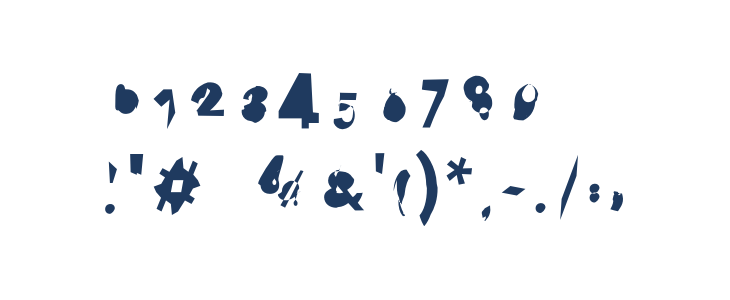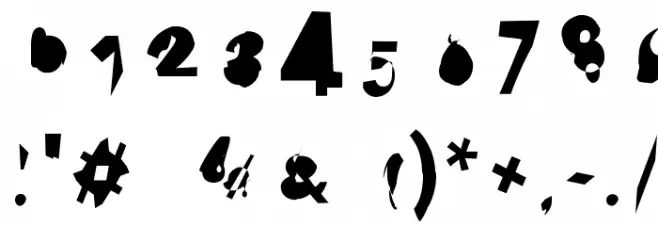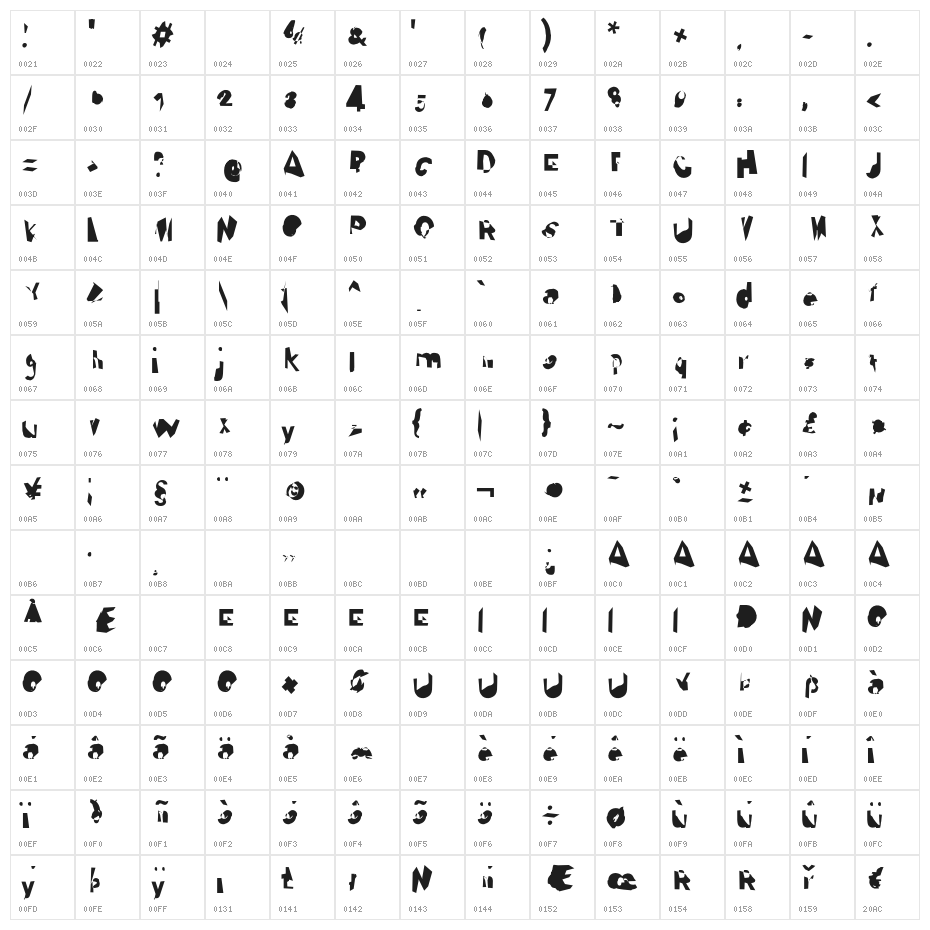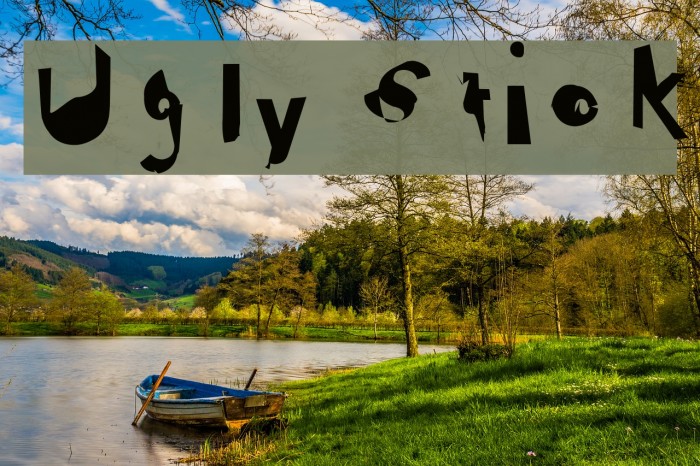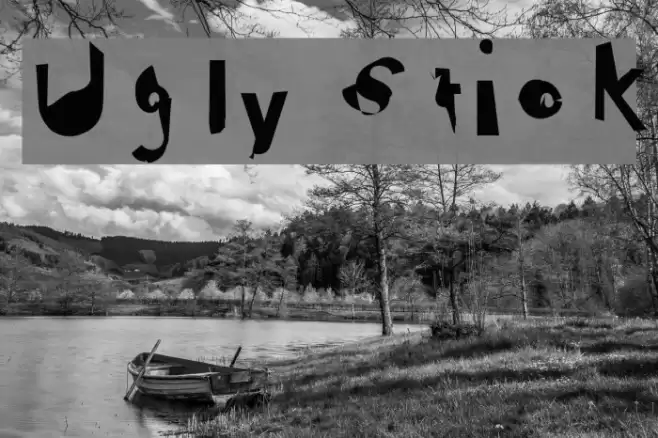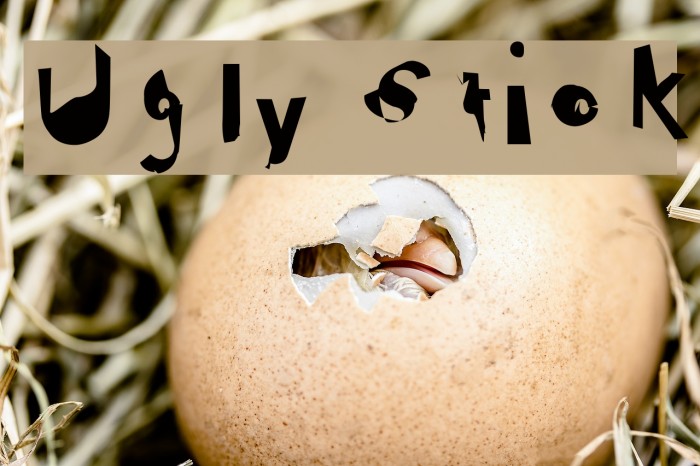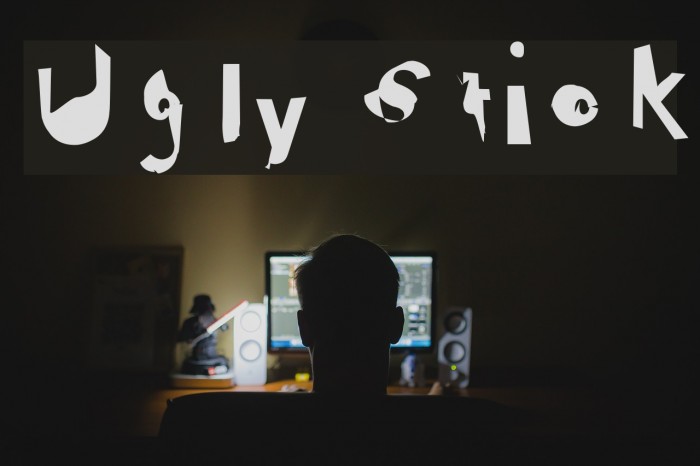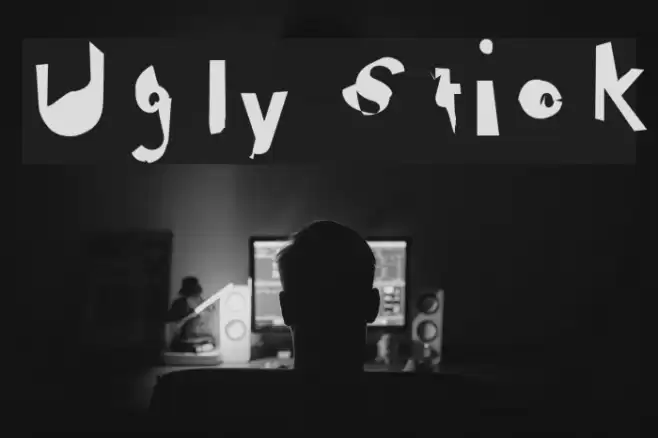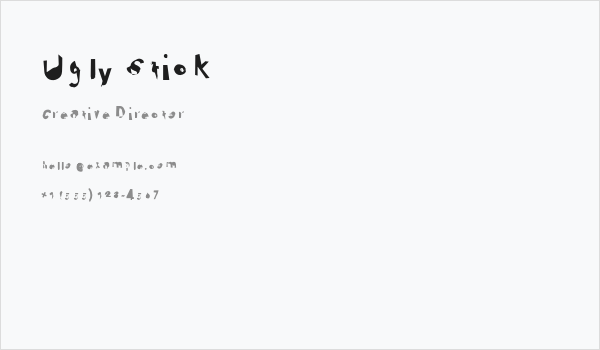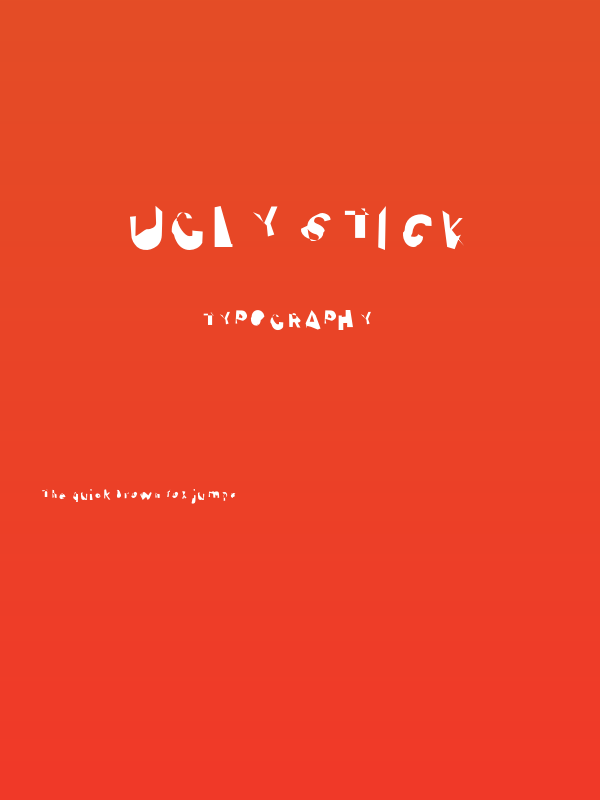
Ugly Stick Font
Ugly Stick Description
This font presents a highly unconventional and abstract design, characterized by its fragmented and distorted letterforms. Each character appears as if it has been torn or cut, creating a chaotic yet intriguing visual effect. The uppercase and lowercase letters maintain a consistent level of distortion, making the font suitable for projects that aim to convey a sense of disruption or artistic rebellion. The numbers and special characters follow the same design principle, ensuring uniformity across the entire character set. This font is not intended for readability but rather for artistic expression and unique visual impact.
| Overall Style | Modern, Abstract |
| Use Case | Logos, Posters, Artistic Projects |
| Proposed Projects | Ideal for album covers, avant-garde posters, or any project seeking a bold, artistic statement. |